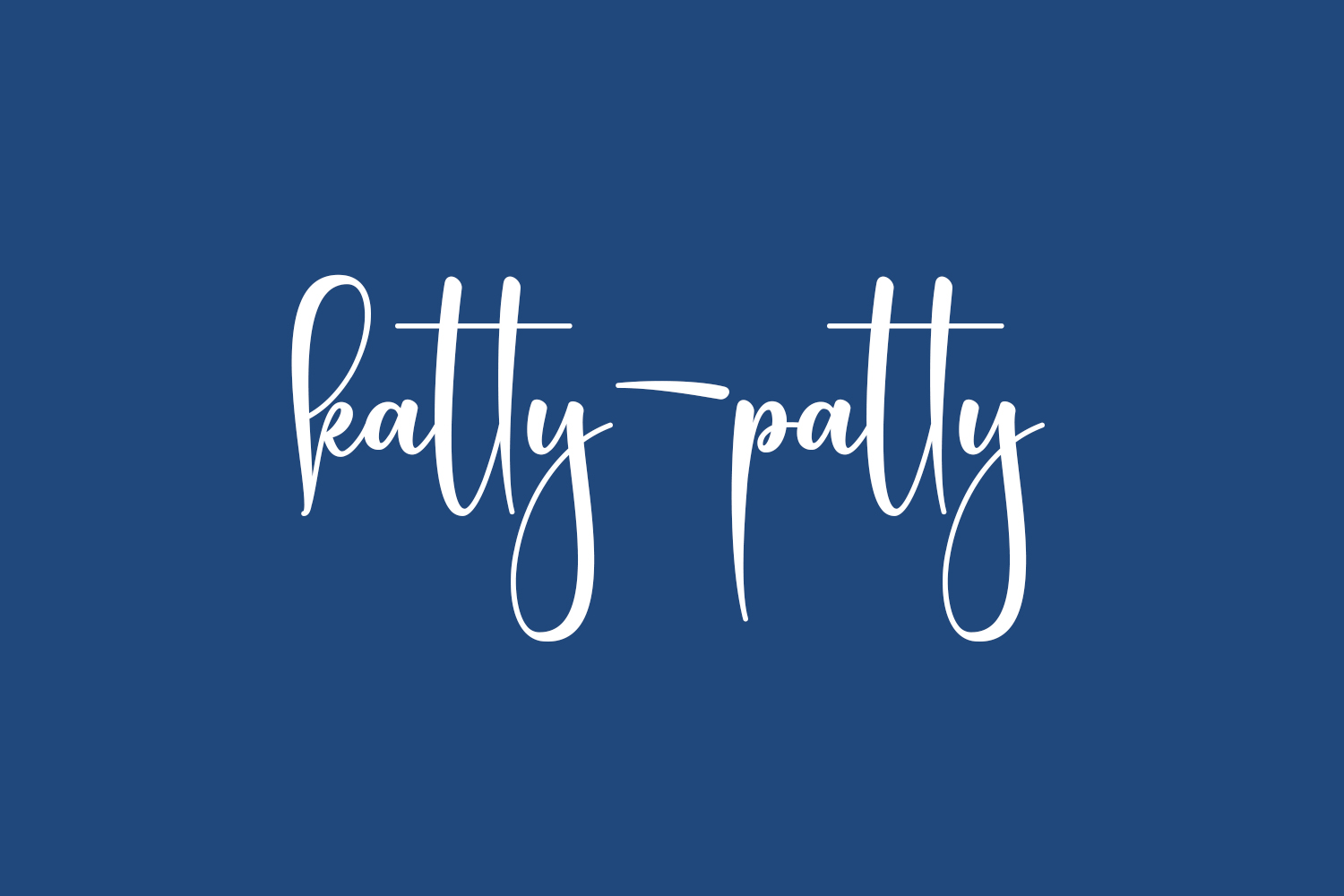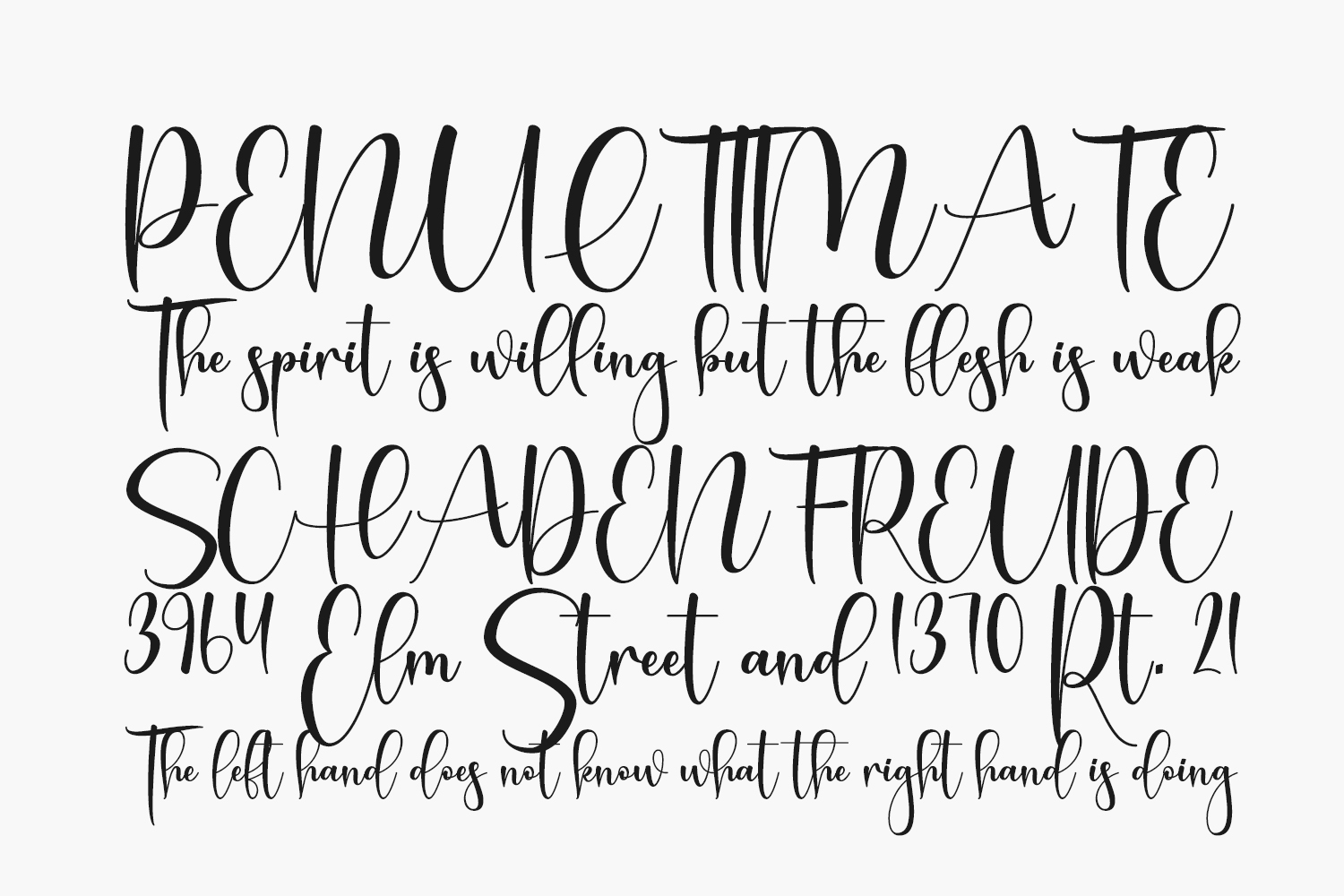
Katty Patty Free Font is a thin-lettered and delicate script font. Add it confidently to your favorite creations, and let yourself be amazed by the outcome generated. Katty Patty Free Font is free for personal use only. Please purchase the full version for commercial use.